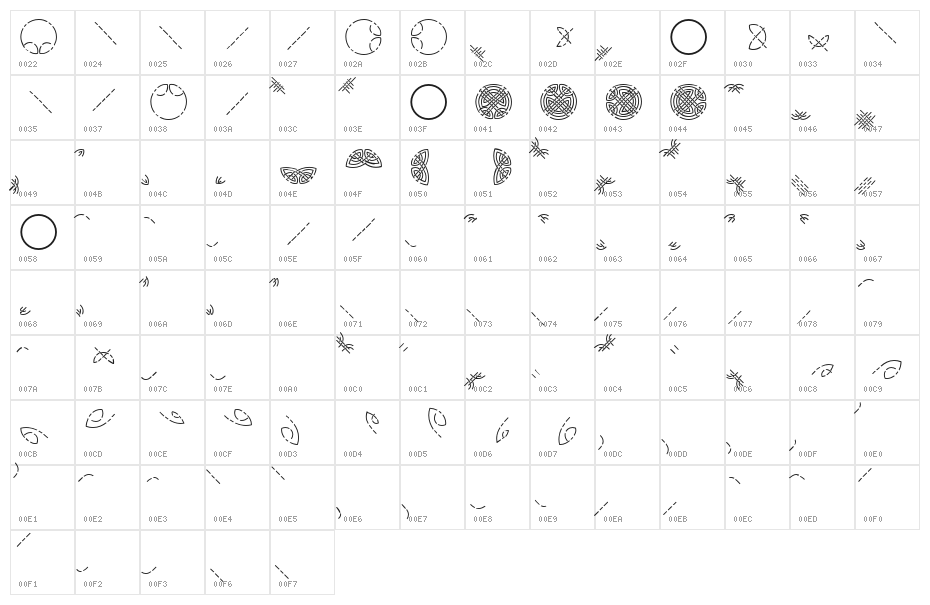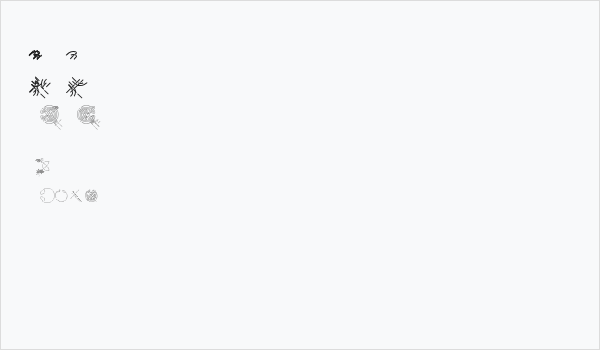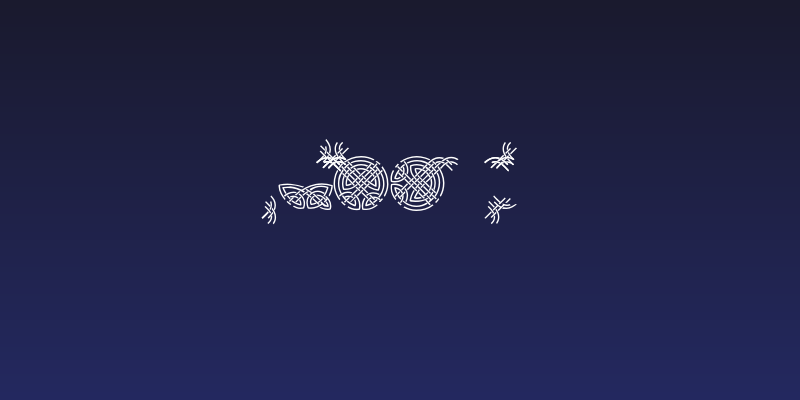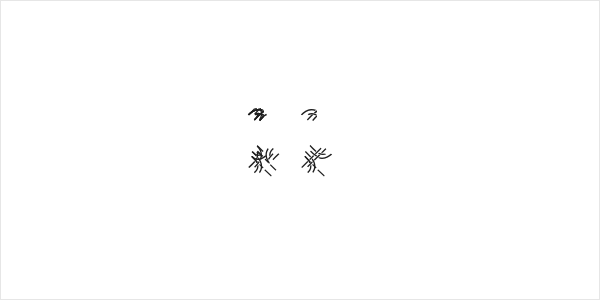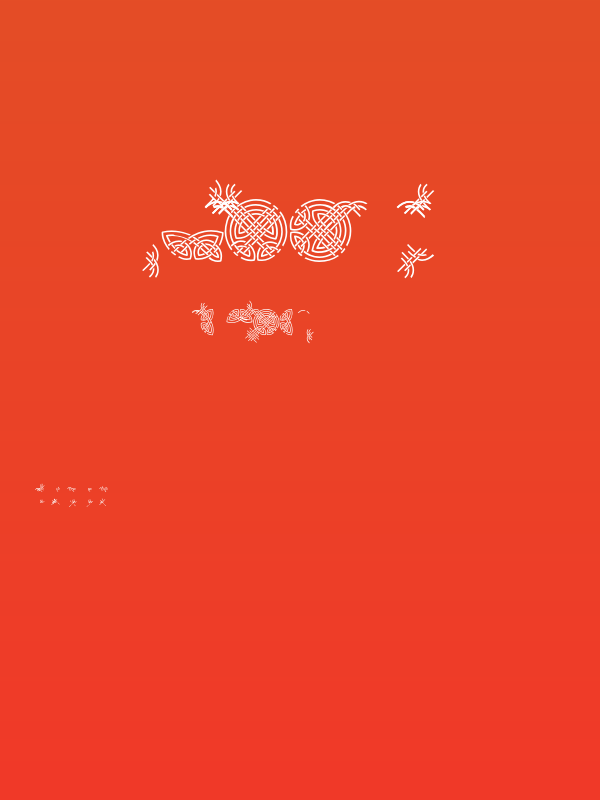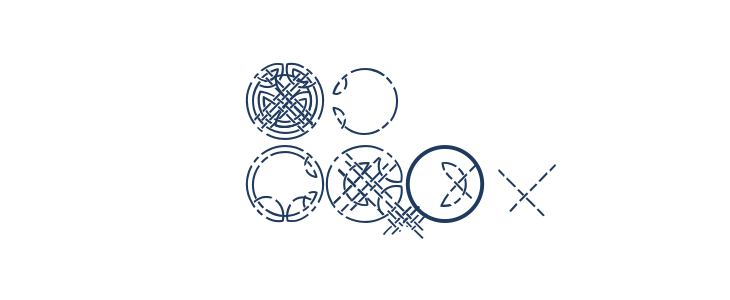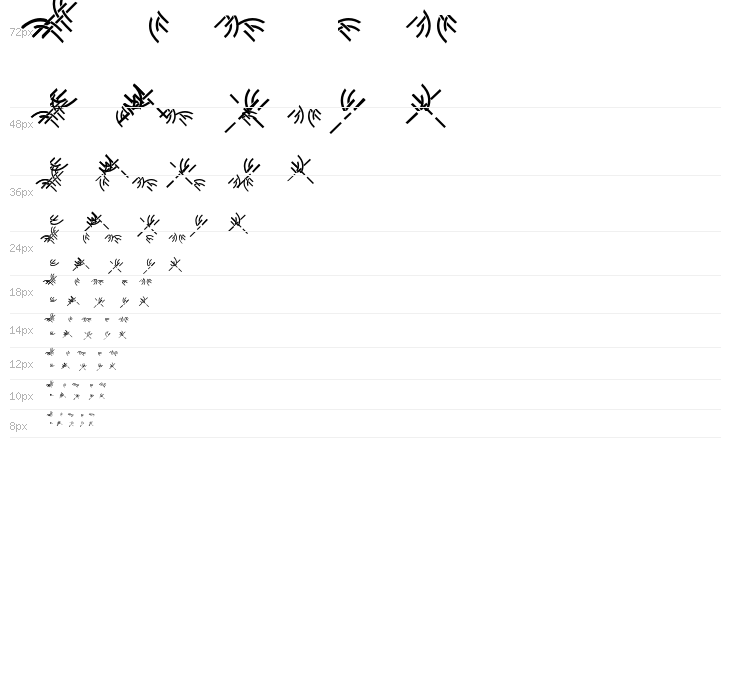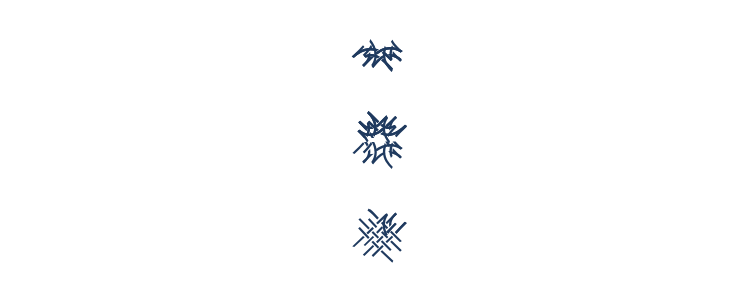
Interlace Set Font
Interlace Set Description
This set features intricate, interwoven circular and triangular patterns reminiscent of Celtic knots, with bold, continuous black lines forming complex geometric shapes. The characters are highly decorative and abstract, lacking traditional letterforms or numerals, and instead focus on ornamental motifs.
| Overall Style | Decorative, Celtic, Ornamental |
| Use Case | Logos, Decorative elements, Borders, Themed artwork |
| Proposed Projects | Branding for Celtic or historical themes, ornamental borders, tattoo designs, book covers, decorative posters. |